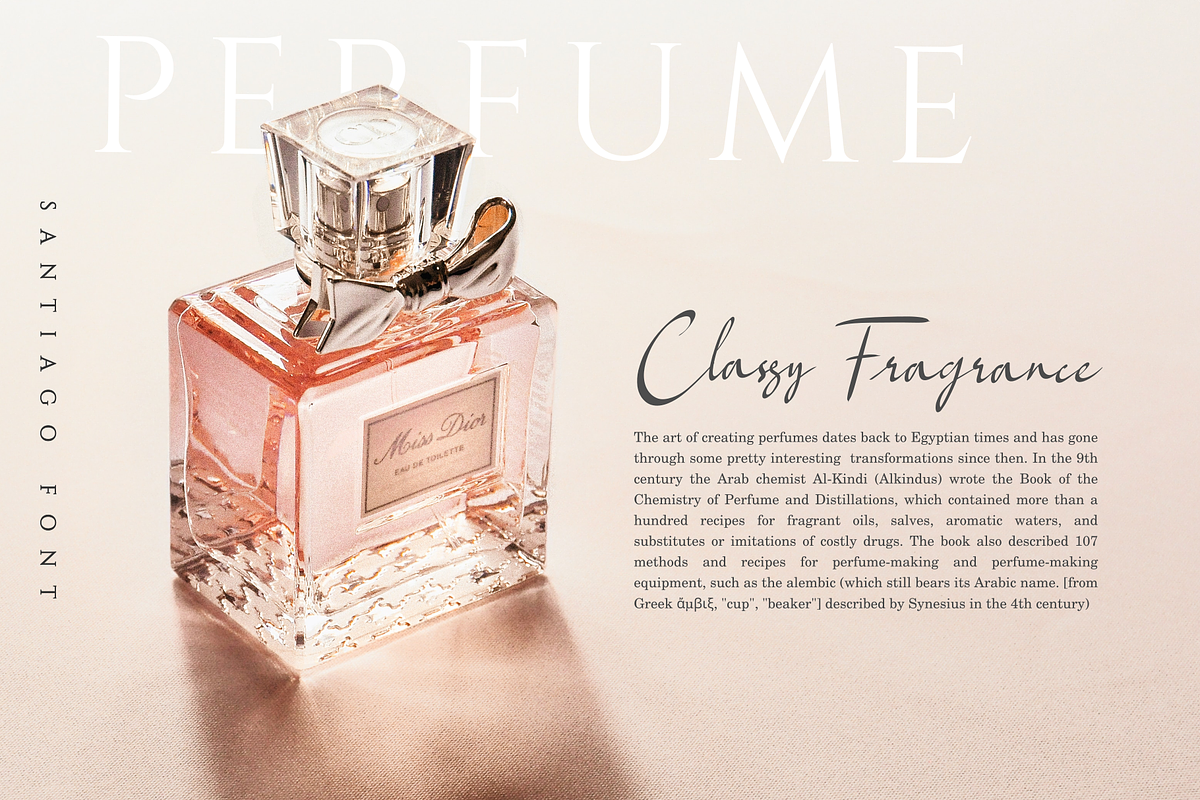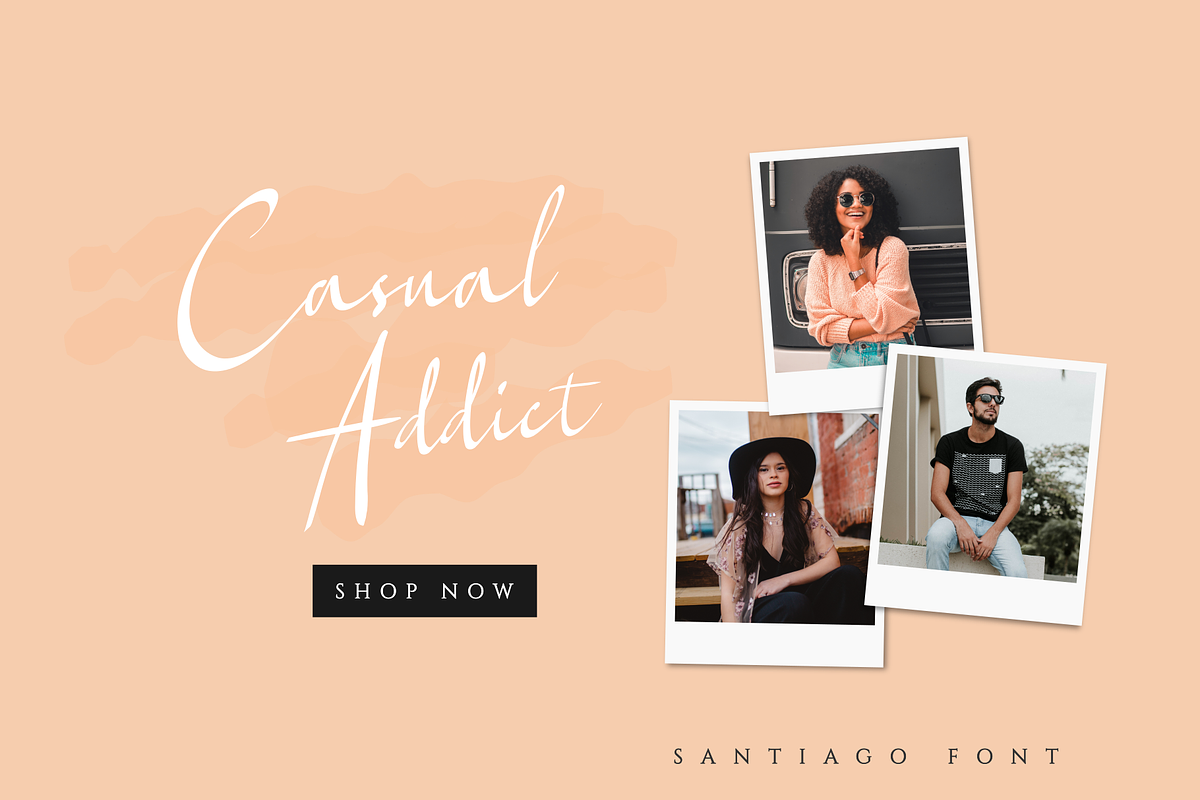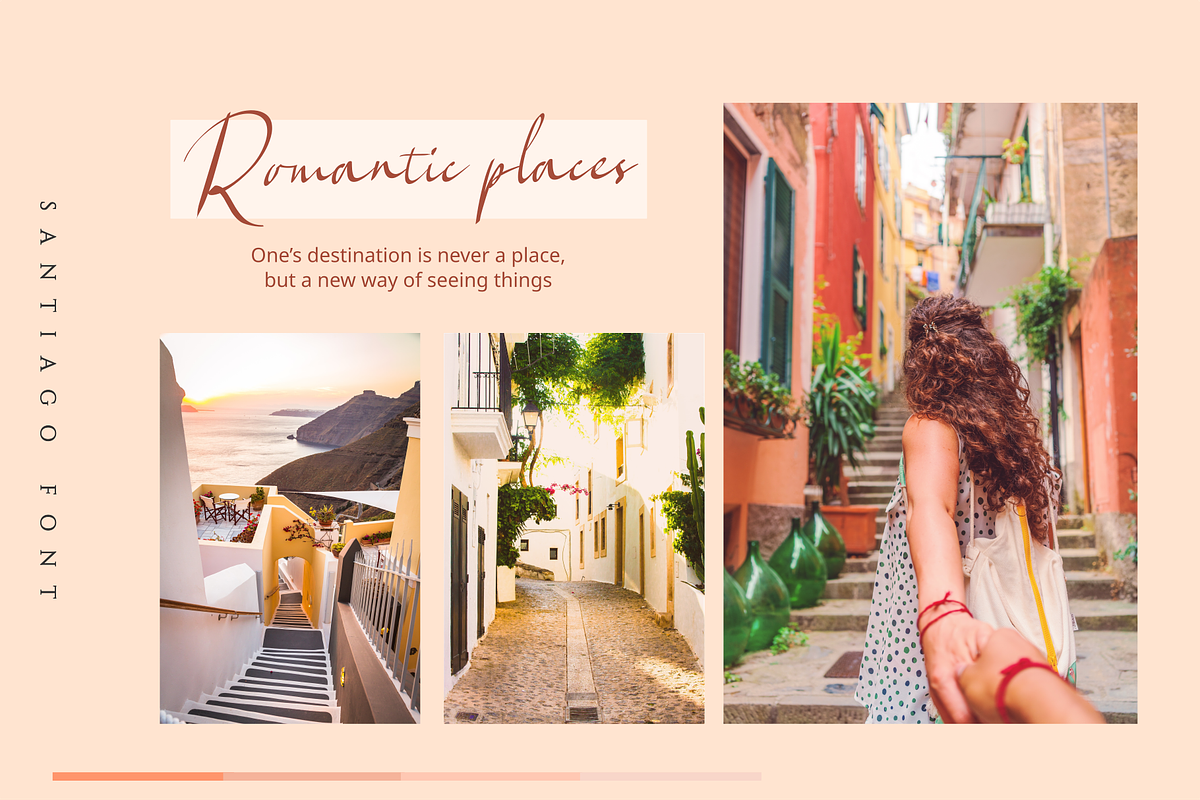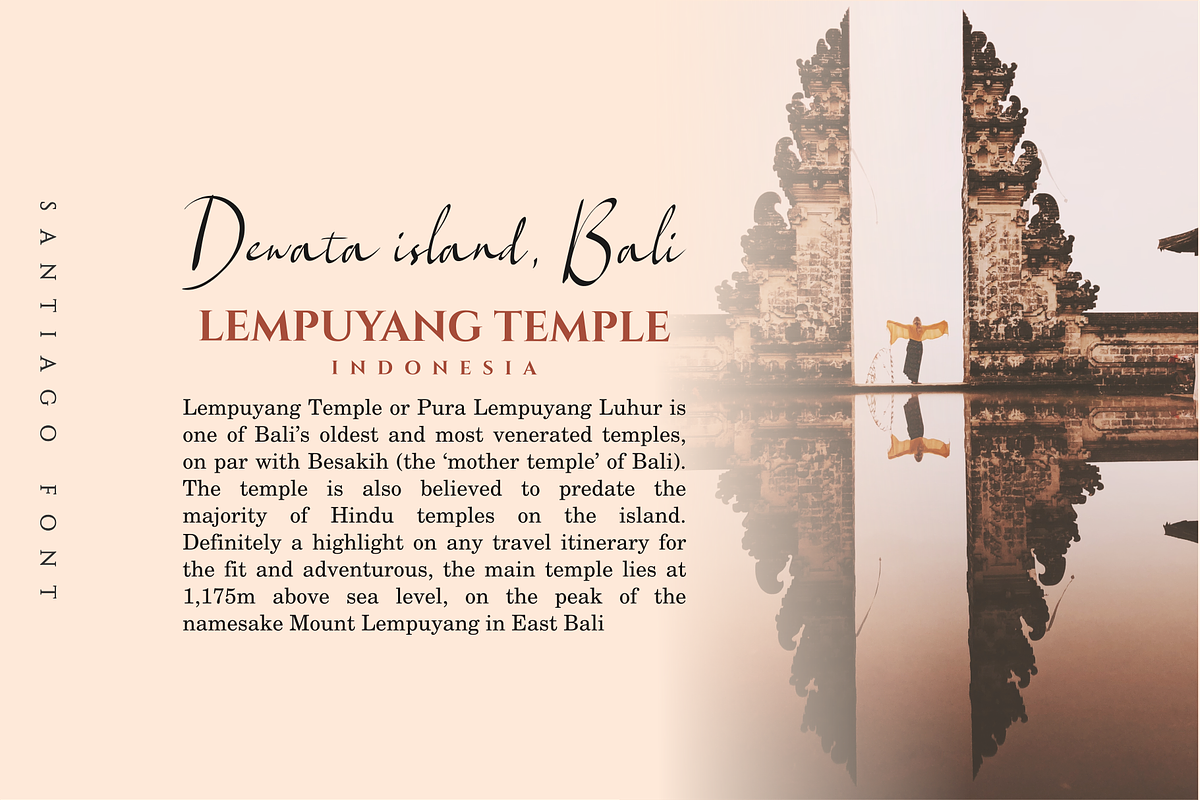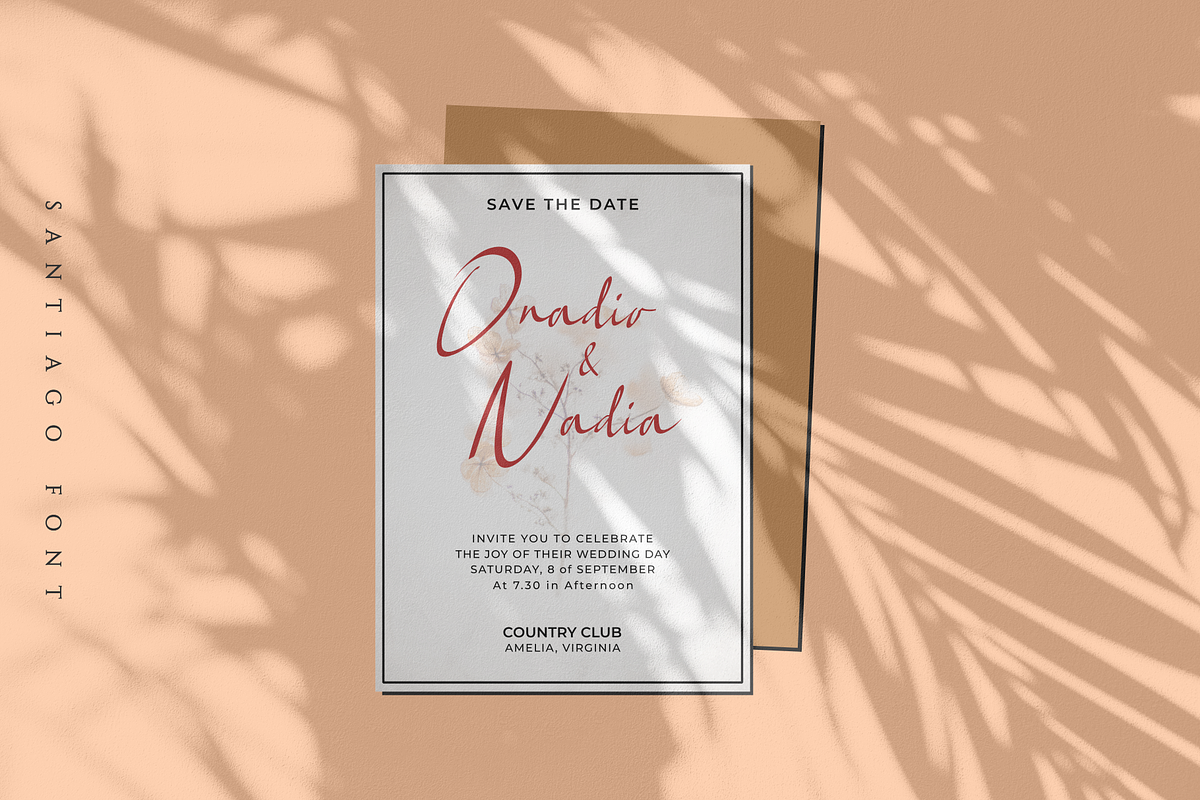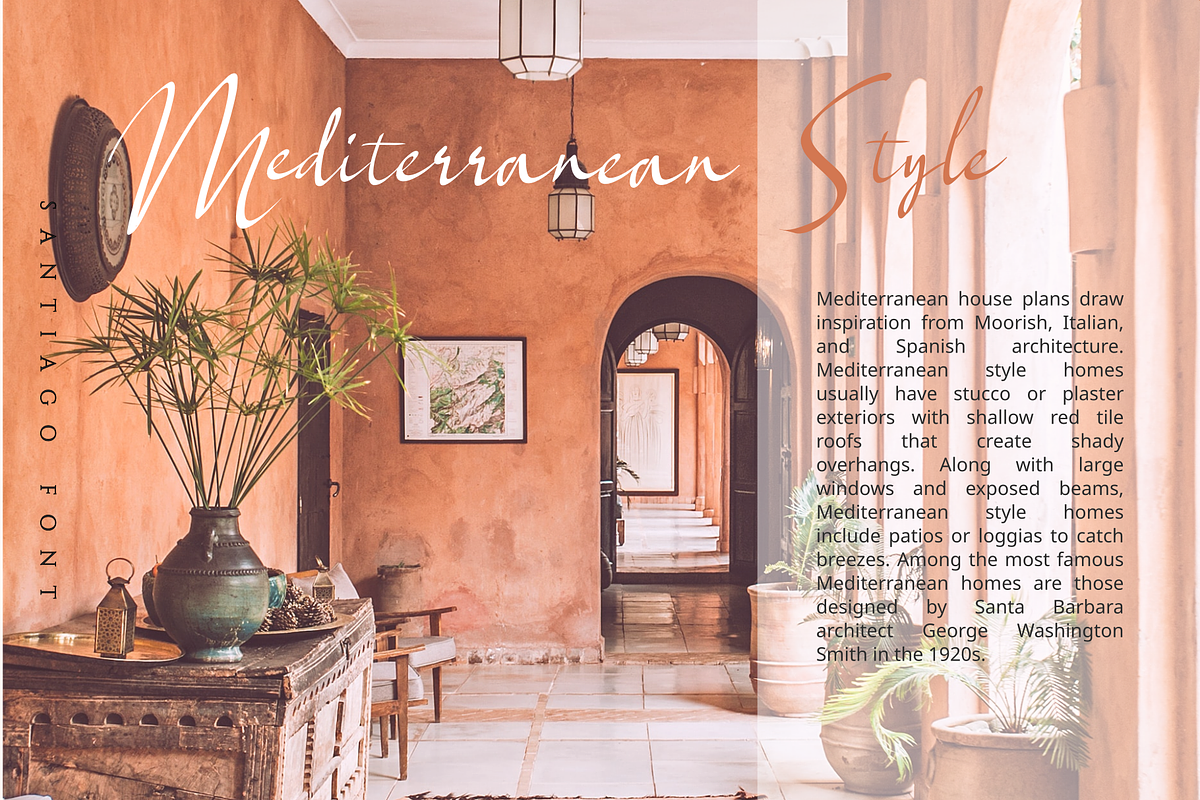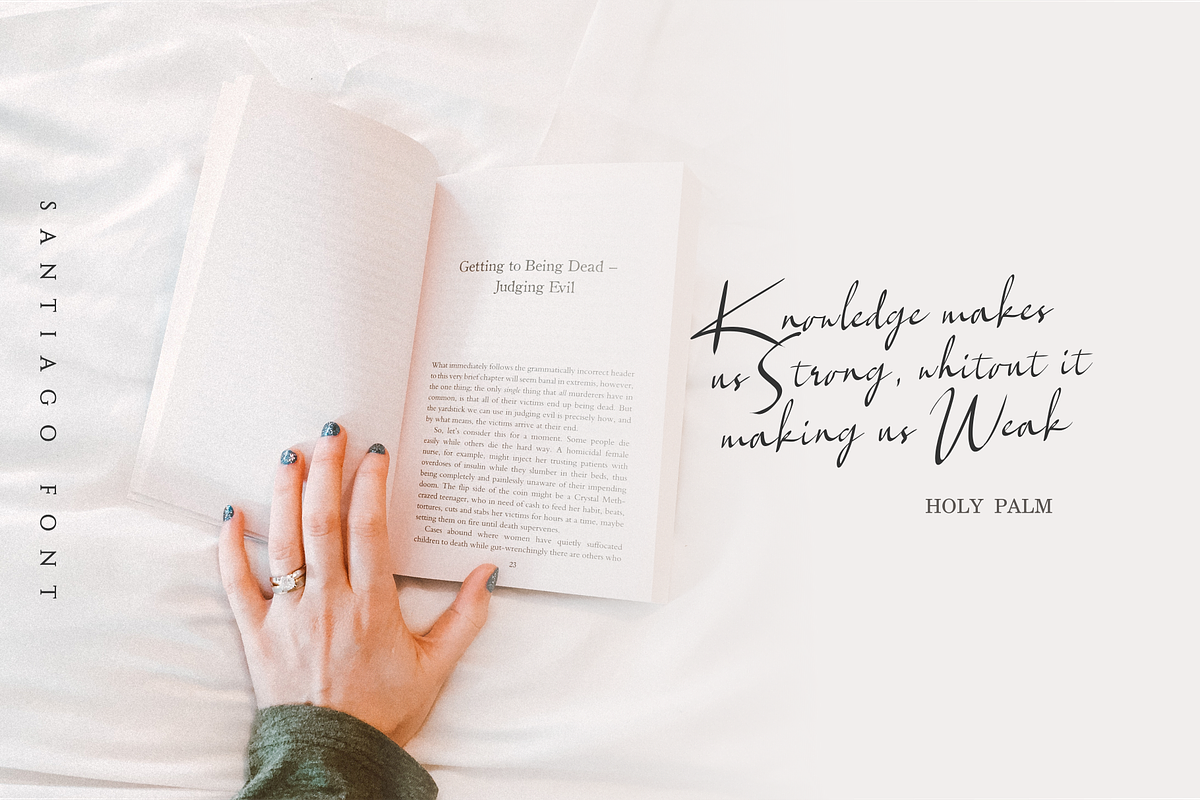
Santiago - Elegant Font
An elegant script font called Santiago, every shape this font made by the natural strike. For customize, Santiago comes with some features like alternate and ligature. It perfect for branding, magazine, greeting card, wedding invitation, and social media stories, etc.
Multilingual, support 16 languages ( Afrikaans, Albanian, Catalan, Danish, Dutch, English, Estonian, Finnish, French, German, Icelandic, Italian, Norwegian, Portuguese, Spanisch, Swedish, Zulu )
Santiago - Elegant Font by Java pep fits naturally into Branding, posters, packaging, typography.